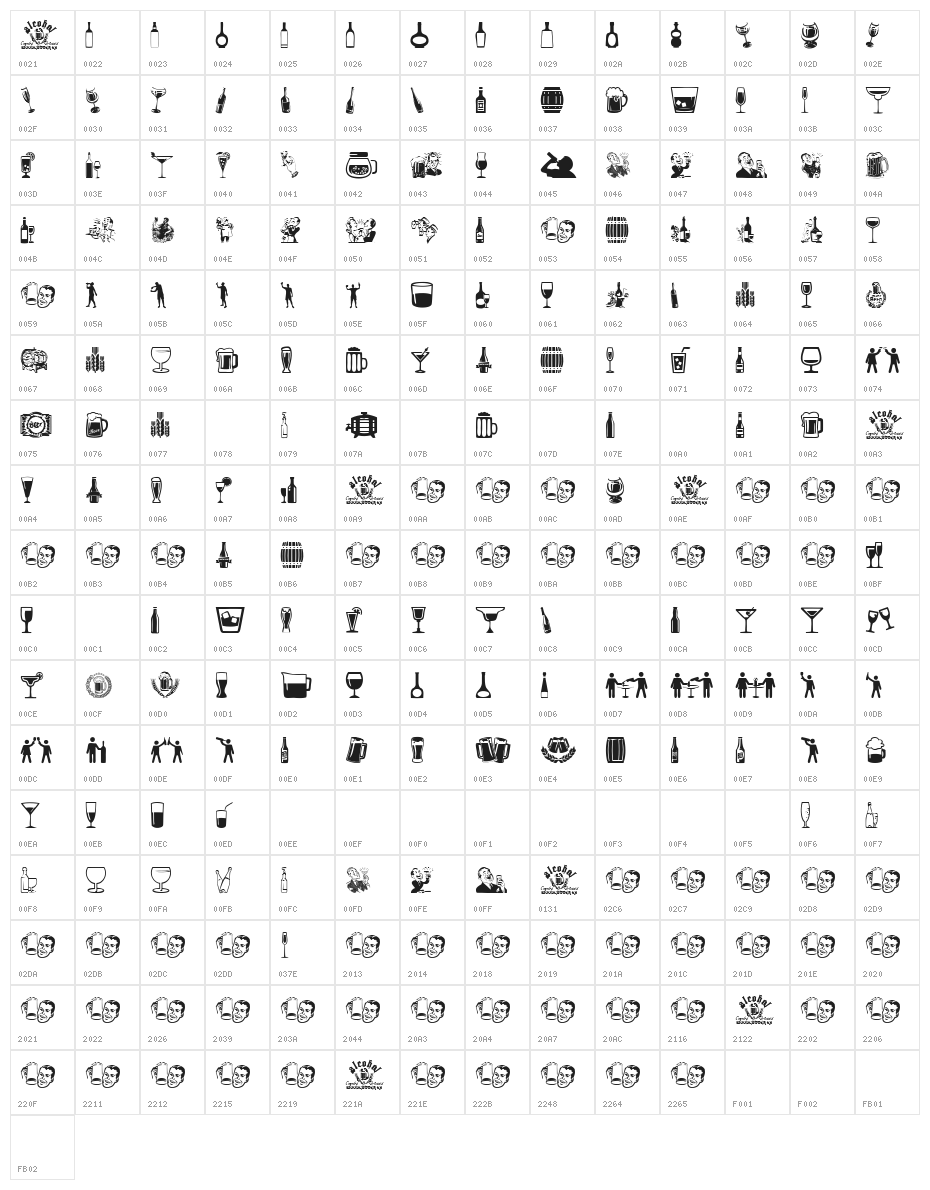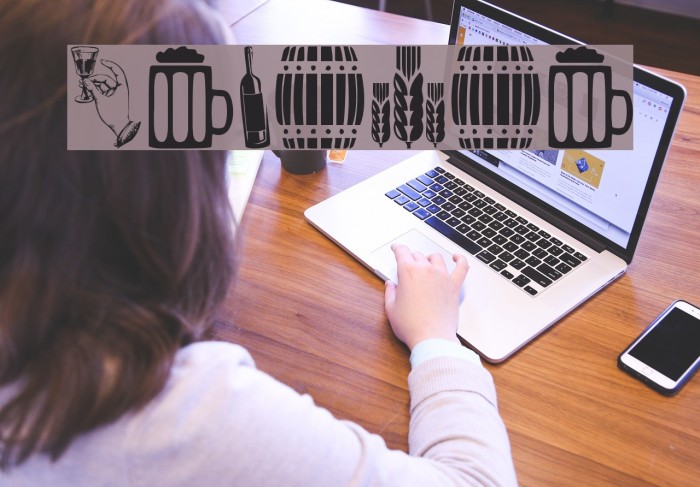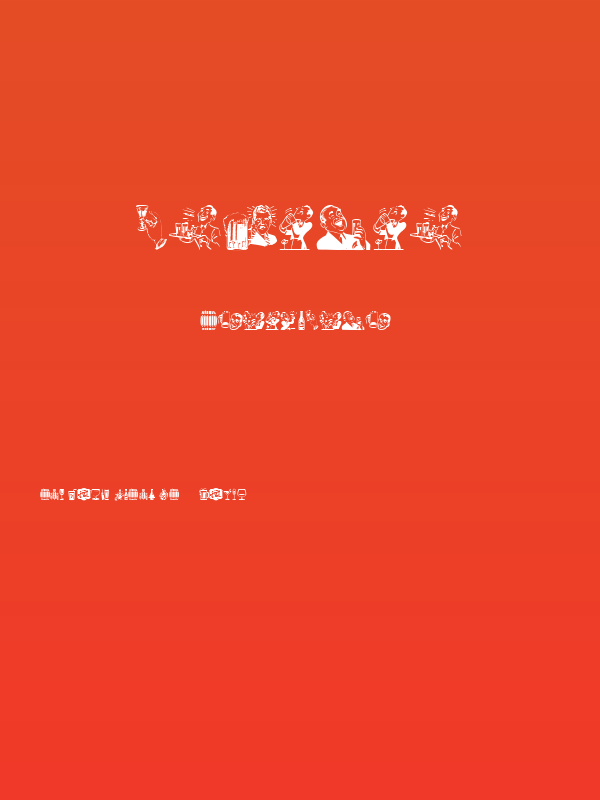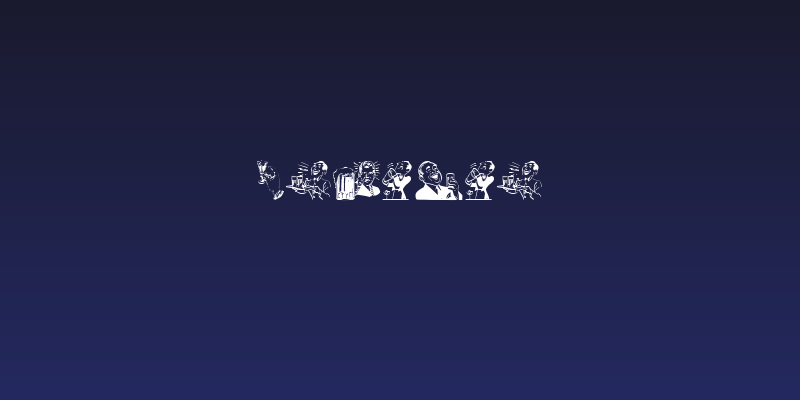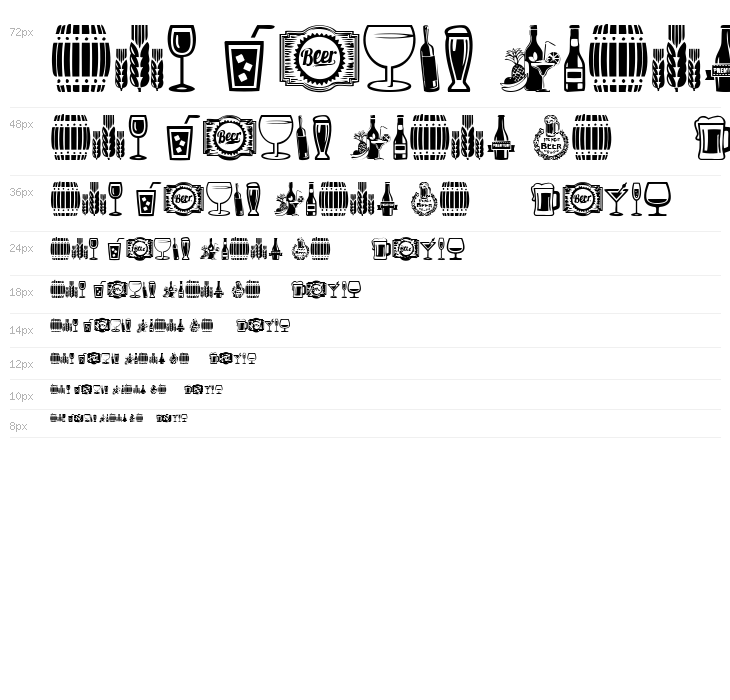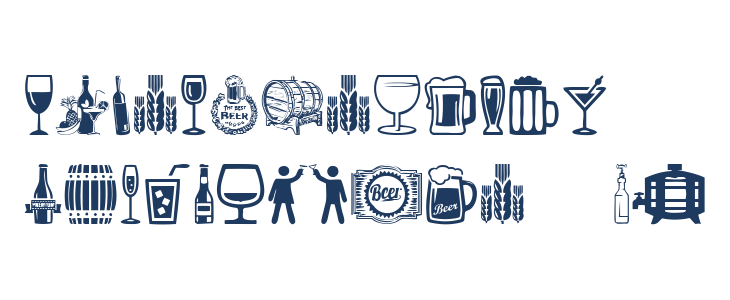
Alcohol Font
Alcohol Description
A decorative display font composed entirely of alcohol-themed pictograms, including bottles, glasses, barrels, people drinking, and various drinkware. The glyphs are highly illustrative, bold, and detailed, making each character a unique icon rather than a traditional letterform.
| Overall Style | Decorative, Thematic, Playful |
| Use Case | Logos, Headlines, Themed graphics, Posters |
| Proposed Projects | Party invitations, bar menus, event posters, themed branding, social media graphics. |